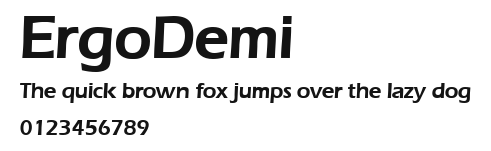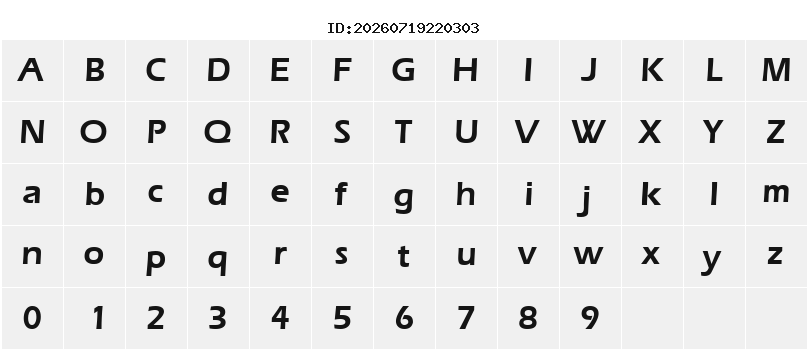
About ErgoDemi.ttf
ErgoDemi.ttf is a modern, elegant sans-serif font designed for ultimate readability and visual harmony. Perfect for branding, headlines, web design, and print materials.